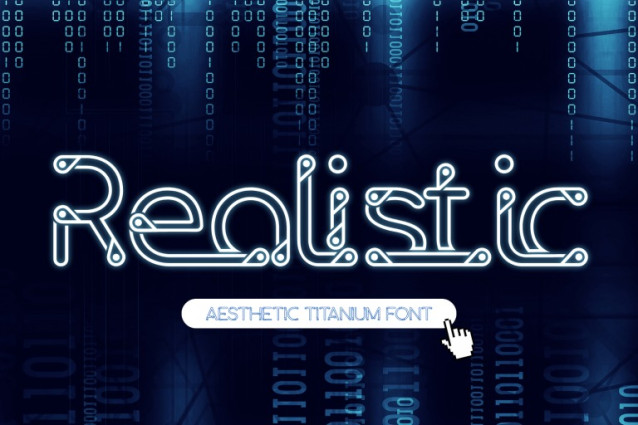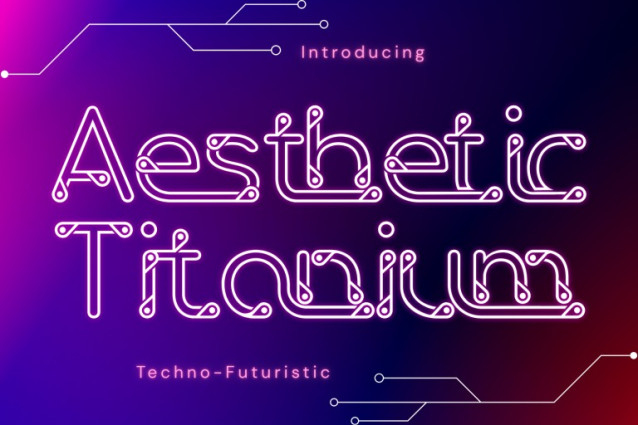
Aesthetic Titanium Font
Aesthetic Titanium – Neon Tech Font – Futuristic Neon Tech Display Font, is a futuristic display font inspired by the sleek lines of neon lights and circuit board aesthetics. Designed with monoline geometry and rounded terminals, this typeface blends science-fiction energy with modern tech elegance — making it perfect for digital interfaces, branding, posters, or any design looking to feel bold, fresh, and visionary. The font’s unique construction and stylized ligatures bring a distinctive high-tech flavor that feels right at home in cyberpunk universes, gaming titles, or cutting-edge product presentations.
Full Uppercase and Lowercase Set
~100 Futuristic Ligatures & Alternates
Accented Characters for Multilingual Use
Minimalist Tech Style with Rounded Nodes
🔤 About 100 ligatures combined with Stylistic Alternates Font: